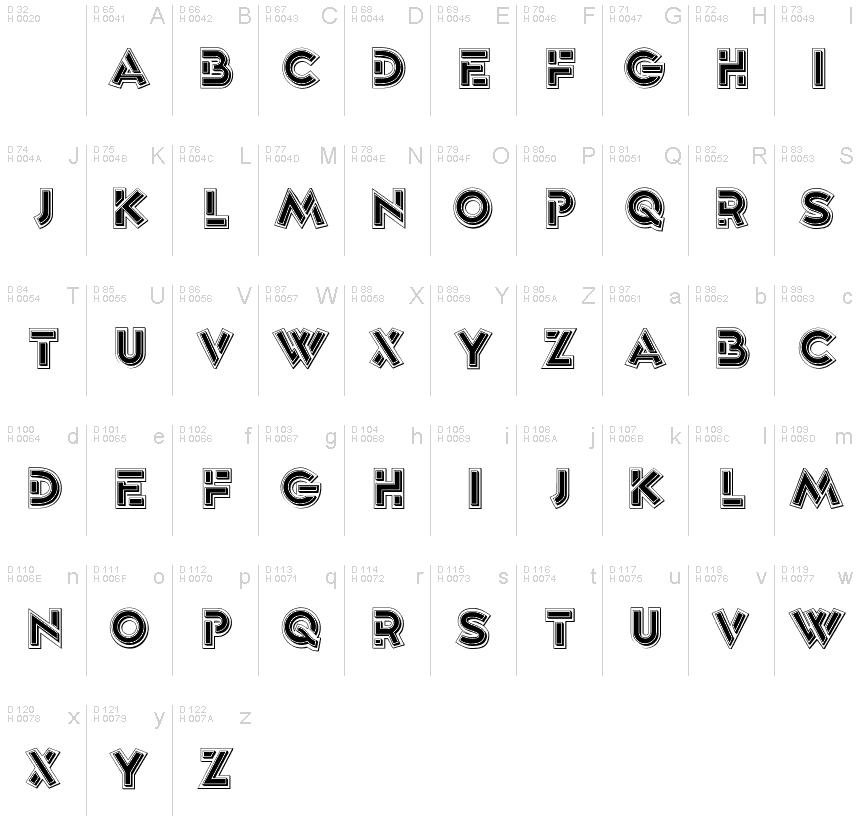
Roshandan Regular
Roshandan is a bold, wide display font designed by Vladimir Nikolic. It's the perfect typeface for making a statement and inspiring creativity. From eye-catching logos and titles to captivating posters and banners, this font is sure to grab attention with its unique style. Try Roshandan for any project that needs a unique flair, such as website headers, album covers or packaging designs.